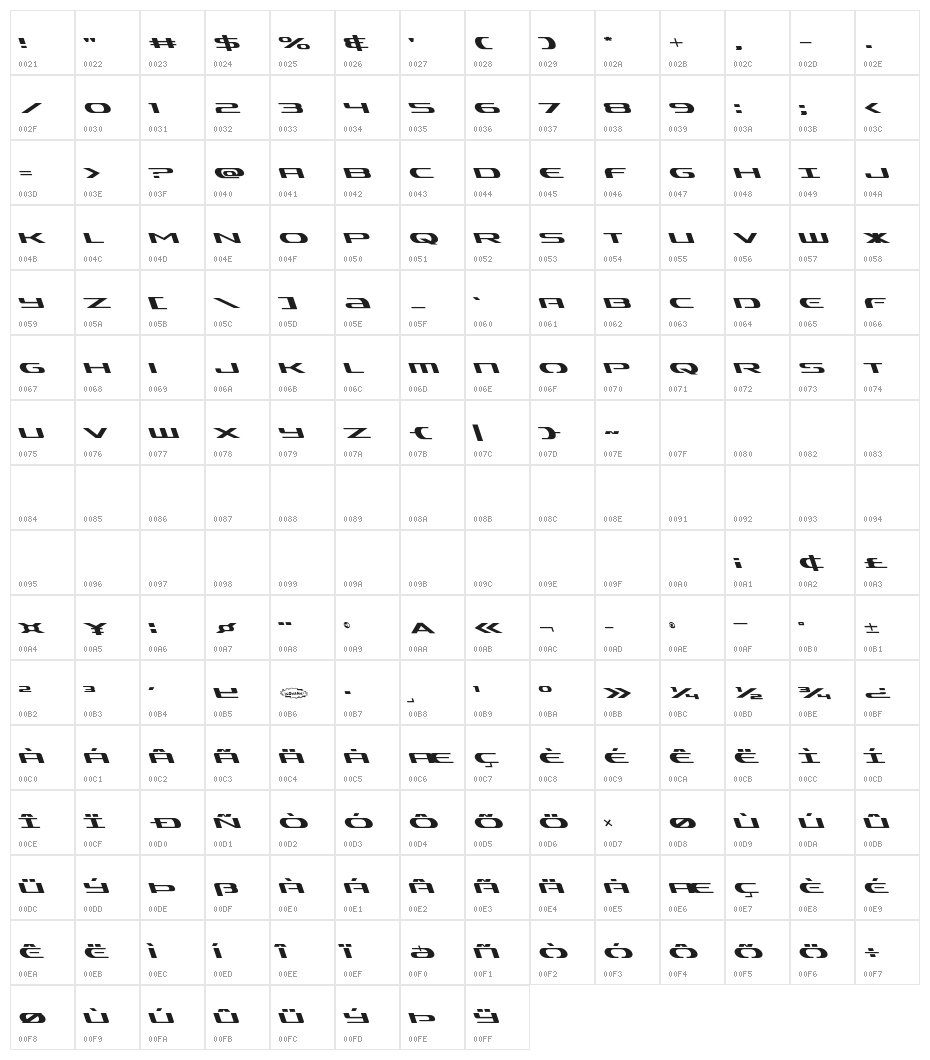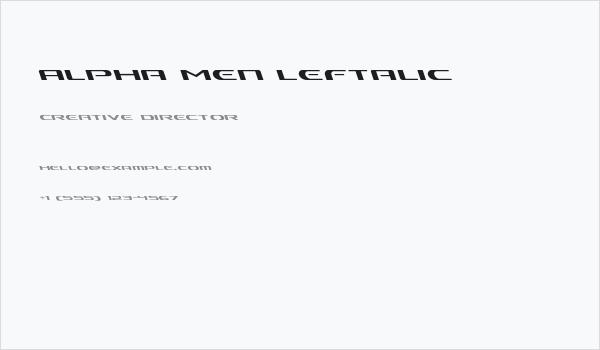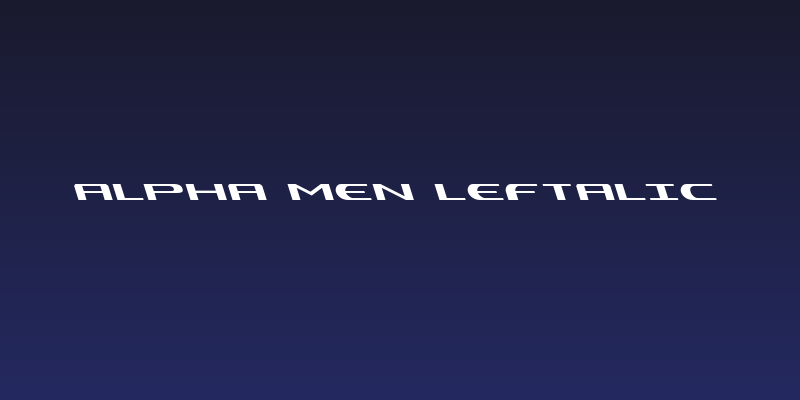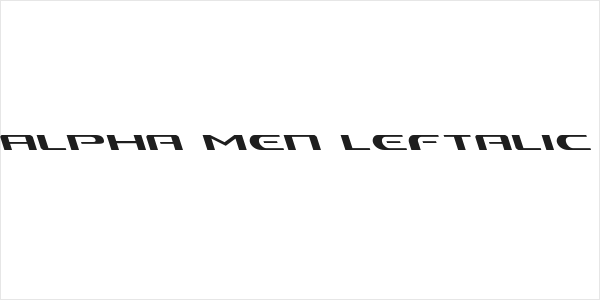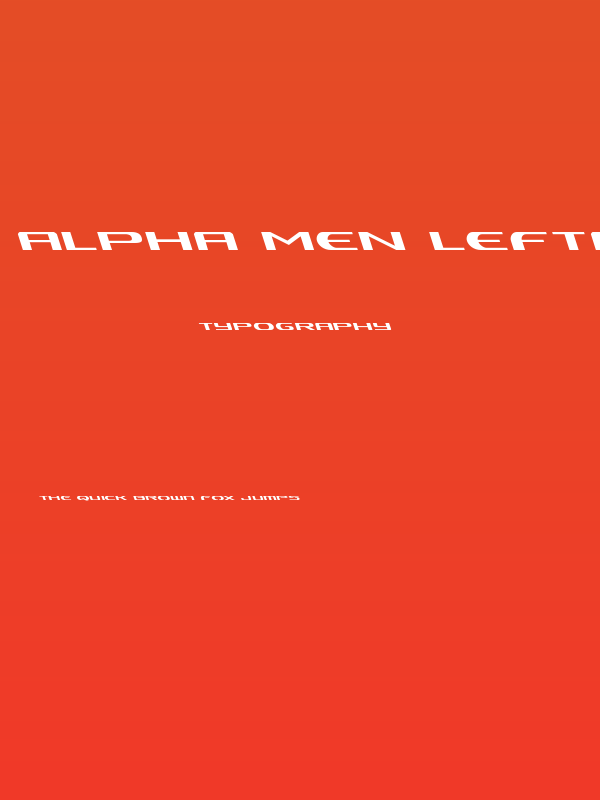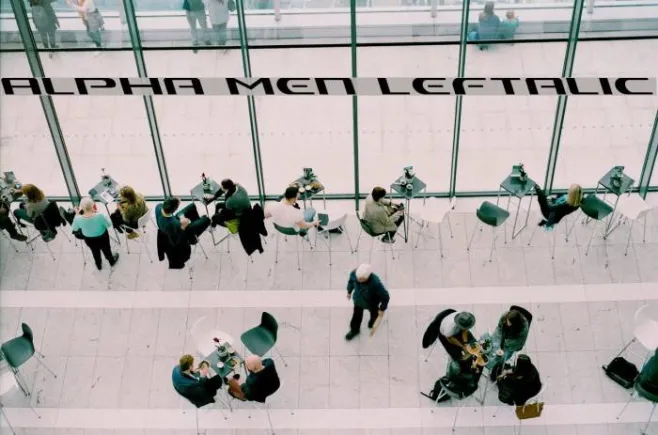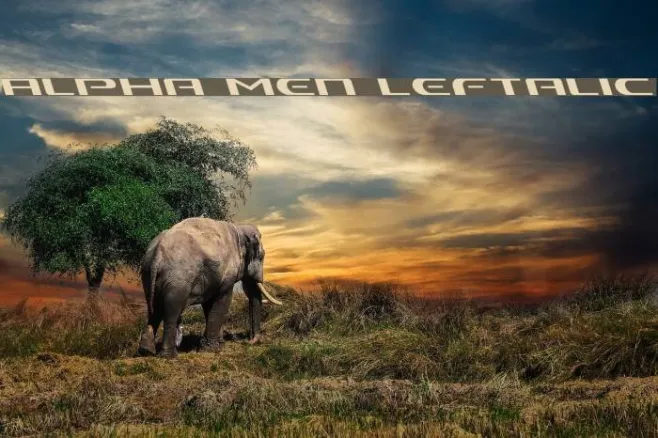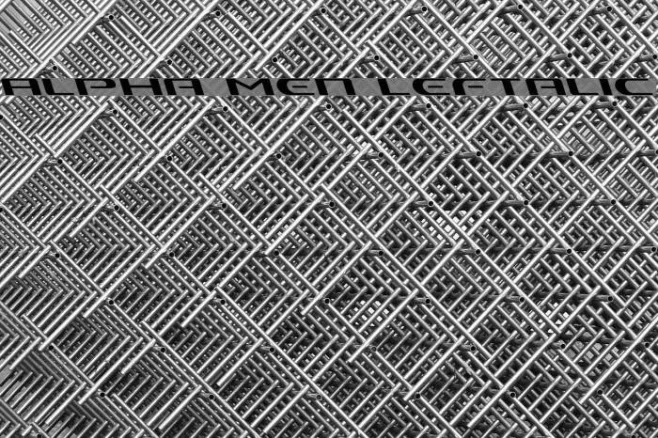
Alpha Men Leftalic Font
Alpha Men Leftalic Description
This font features a futuristic and dynamic design with a distinct italic slant, giving it a sense of motion and speed. The characters are bold and angular, with sharp edges and a sleek appearance. The uppercase and lowercase letters maintain a consistent style, while the numerals and special characters complement the overall aesthetic. The font's unique design makes it suitable for projects that require a modern and edgy look.
ALPHA-MEN-LEFTALIC UPPERCASE
ALPHA-MEN-LEFTALIC LOWERCASE
ALPHA-MEN-LEFTALIC OTHER CHARS
| Proposed Projects | Ideal for sci-fi themed designs, technology branding, video game titles, and modern advertising. |